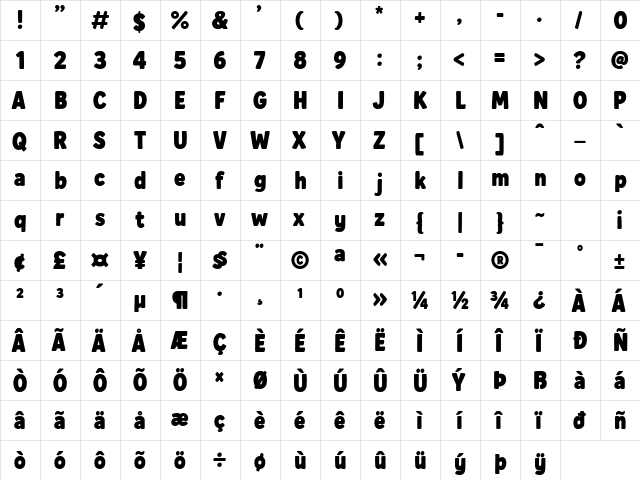
Complete Casual Memories Bold glyph index. Displaying only characters natively supported by Casual Memories Bold font.
Casual Memories is a composed and adaptable typeface that performs quietly and consistently across a wide range of design contexts. Its bold stroke weight gives it real presence on the page.